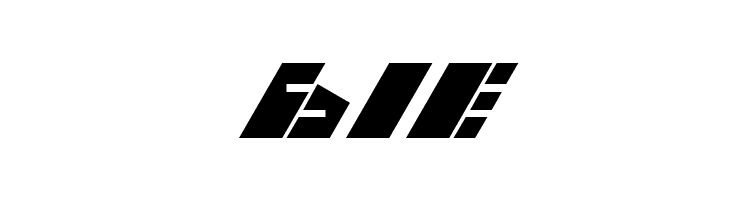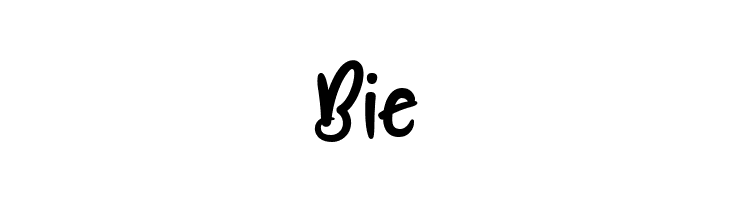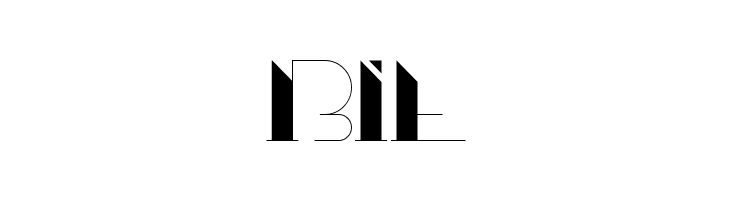
A bold, angular font with a futuristic and geometric design.
A bold, playful handwritten font with smooth, rounded edges and a lively style.
A bold, chrome-effect font with a modern, metallic appearance.
A bold, brush-style font with an energetic and expressive appearance.
A modern, geometric font with sharp angles and a futuristic aesthetic.
A playful, handwritten-style font with a whimsical and casual appearance.
A geometric, runic-inspired font with angular, cryptic characters.